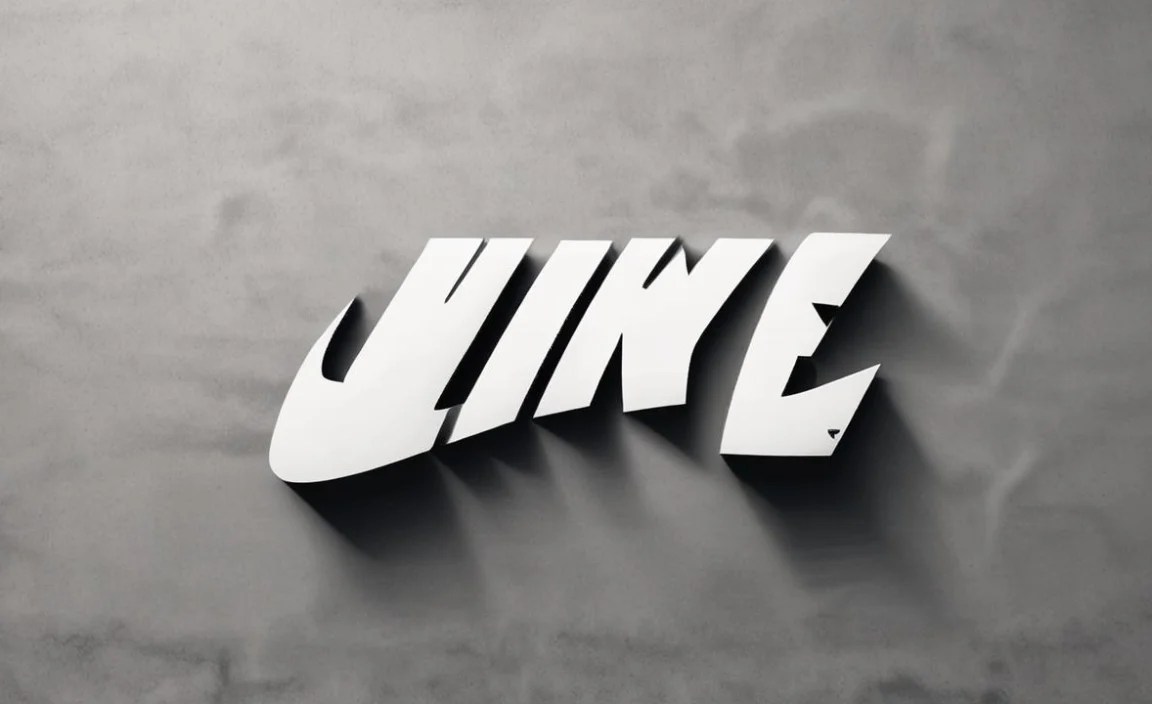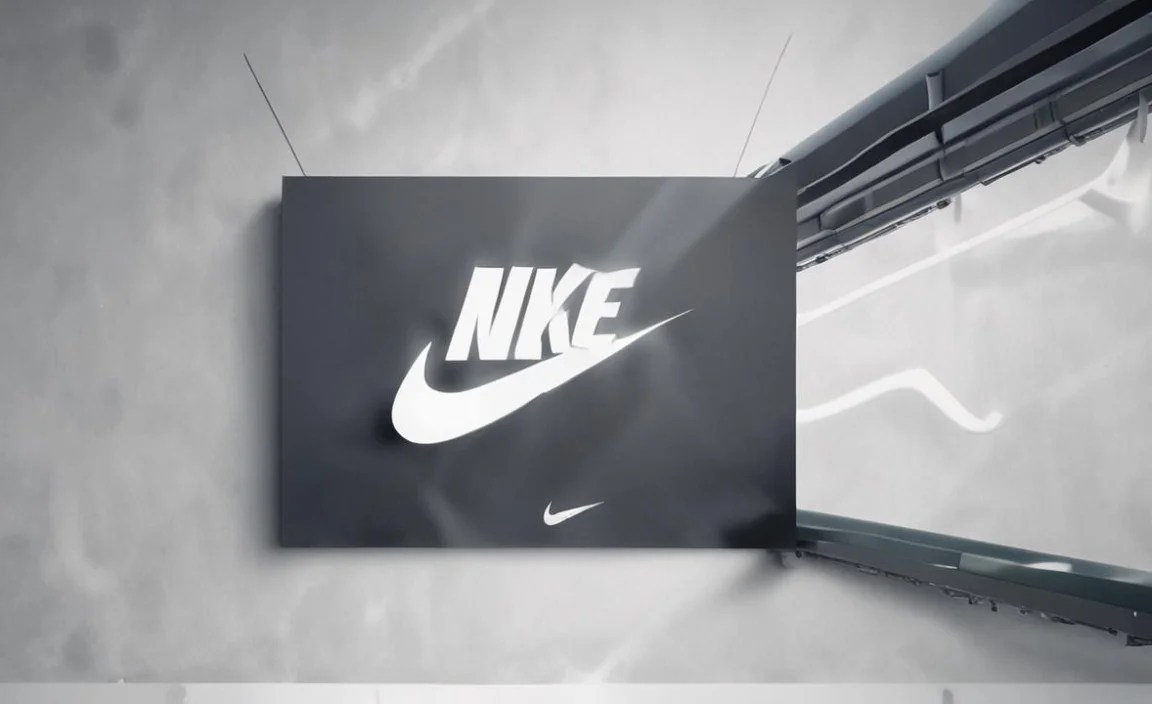
The Nike Font, often associated with the sportswear giant, is bold and highly recognizable. Known as “Nike Futura,” this typeface represents the brand’s commitment to innovation, strength, and performance.
Its clean, geometric design has made it a staple in Nike’s branding, appearing across various products and advertising materials.
Nike Font Information
| Name | Nike Futura |
| Designer | Paul Renner |
| Type | Geometric Sans-serif |
Nike Font Family Includes
- Nike Script
- Nike Futura Light
- Nike Futura Light Italic
- Nike Futura Book
- Nike Futura Book Italic
- Nike Futura Medium
- Nike Futura Medium Italic
- Nike Futura Bold
- Nike Futura Bold Italic
- Nike Futura Black
- Nike Futura Black Italic
- Nike Futura Condensed Light
- Nike Futura Condensed Light Italic
- Nike Futura Condensed Medium
- Nike Futura Condensed Medium Italic
- Nike Futura Condensed Bold
- Nike Futura Condensed Bold Italic
- Nike Futura Condensed Black
- Nike Futura Condensed Black Italic
- Nike VaporFutura
Where Nike Font Is In Use
Nike Font plays a crucial role in shaping the brand’s visual identity. Its bold and dynamic nature makes it perfect for various applications, ensuring the brand’s message is strong and clear. Nike logo features a sans-serif italic typeface similar to Futura Bold Condensed Oblique, designed in 1928. Notable uses include:
- Nike logo and branding
- Product packaging
- Sports apparel and footwear
- Advertising campaigns
- Retail signage
- Digital Marketing
- Social media graphics
- Event promotions
Nike Font Alternative
- Futura
- Helvetica Neue
- Arial Black
- Bebas Neue
- Gotham
- Proxima Nova
- Montserrat
- DIN 1451
- Trade Gothic
- Impact
2. Why Is Nike Font Effective In Branding?
Nike Font’s bold design aligns perfectly with the brand’s focus on innovation and strength, making it a powerful tool in branding.
3. What Future Trends Involve The Nike Font?
Future trends for Nike Font include its continued use in digital marketing and product design. As Nike evolves, the font remains central to its visual strategy.
4. When Did Nike Start Using Its Signature Font?
Nike adopted its signature font early in its branding journey, aligning it with the brand’s emphasis on performance and innovation.
5. Which Free Font Closely Resembles Nike Font?
Designers in New York and other locations often use Trade Gothic, a font similar to Nike’s original typeface. Free font options like Montserrat may work for personal use, but commercial use requires a licensed font.
6. How Many Fonts Are Part Of The Nike Futura Family?
The Nike Futura font family includes various styles, from Futura Bold Condensed Oblique to others used in branding. This family of fonts, created by Bauer Type Foundry, remains iconic in design and logo creation.
7. What Different Versions Of Nike Font Exist?
Nike’s font design includes multiple versions, such as the original font used in the Nike logo and other typefaces seen in Nike React and Nike FlyEase products. These variations align with Nike’s brand identity across social media and other platforms.